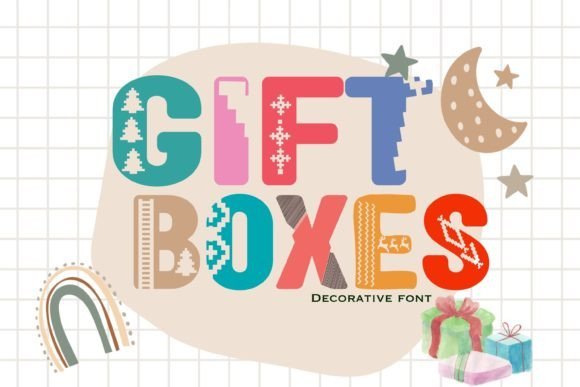
As designers, we’ve all been there – staring at a blank canvas, trying to come up with the perfect idea to make a project stand out. Sometimes, all it takes is a single font to spark that creative moment. For me, it was a festive holiday design that needed a little extra something. That’s when I stumbled upon the Gift Boxes Font, and I knew I had found the perfect solution.
This lovely decorative font is designed to bring a touch of whimsy and Christmas cheer to your designs. With its sweet and adorable style, Gift Boxes Font is the perfect addition to any holiday-themed project. Whether you’re a seasoned designer or just starting out, this font is a valuable asset to have in your toolkit. By incorporating Gift Boxes Font into your designs, you’ll be able to add a unique and festive touch that’s sure to impress.
Gift Boxes Font Key Features
- Font Family: Gift Boxes Font is a unique, hand-drawn font designed to resemble gift boxes. It comes in a single font family with multiple styles.
- Size: The font family includes 6 different font sizes, ranging from 24 to 72 points, making it suitable for various design needs.
- Resolution: Designed to be high-resolution, suitable for print and digital applications at 300 DPI or higher.
- Unique Characteristics: Gift Boxes Font features intricate, hand-drawn designs that resemble gift boxes, perfect for creating festive and playful designs.
- Style Options: Includes multiple style options, including Regular, Italic, Bold, and Bold Italic, allowing for a range of design possibilities.
Gift Boxes Font Review
Overall, I think the Gift Boxes Font is a nice addition to any designer’s toolkit, but it’s not without its limitations. Here’s my honest review.
- Cute and playful aesthetic that’s perfect for gift-related designs
- Good variety of font styles and sizes to choose from
- Easy to customize and use in most design software
- Limited to gift-related designs, which might limit its appeal for broader projects
- Some of the font styles can feel a bit too cutesy or over-the-top
- Not ideal for professional or formal designs, where a more serious font might be needed
Overall, I think the Gift Boxes Font is a great choice for designers who specialize in gift-related designs, such as invitations, wrapping paper, or product packaging. However, it might not be the best fit for more general design projects. With some careful consideration of its limitations, it can be a fun and effective addition to any designer’s toolkit.
Gift Boxes Font: A Practical Application Guide
Use Gift Boxes Font for gift-giving occasions, such as birthdays, weddings, and holidays. You can also use it for packaging design, e-commerce product pages, and social media promotions. To get the most out of Gift Boxes Font, experiment with different font sizes, colors, and styles to create a cohesive design. Consider pairing it with other fonts to create a visually appealing combination.